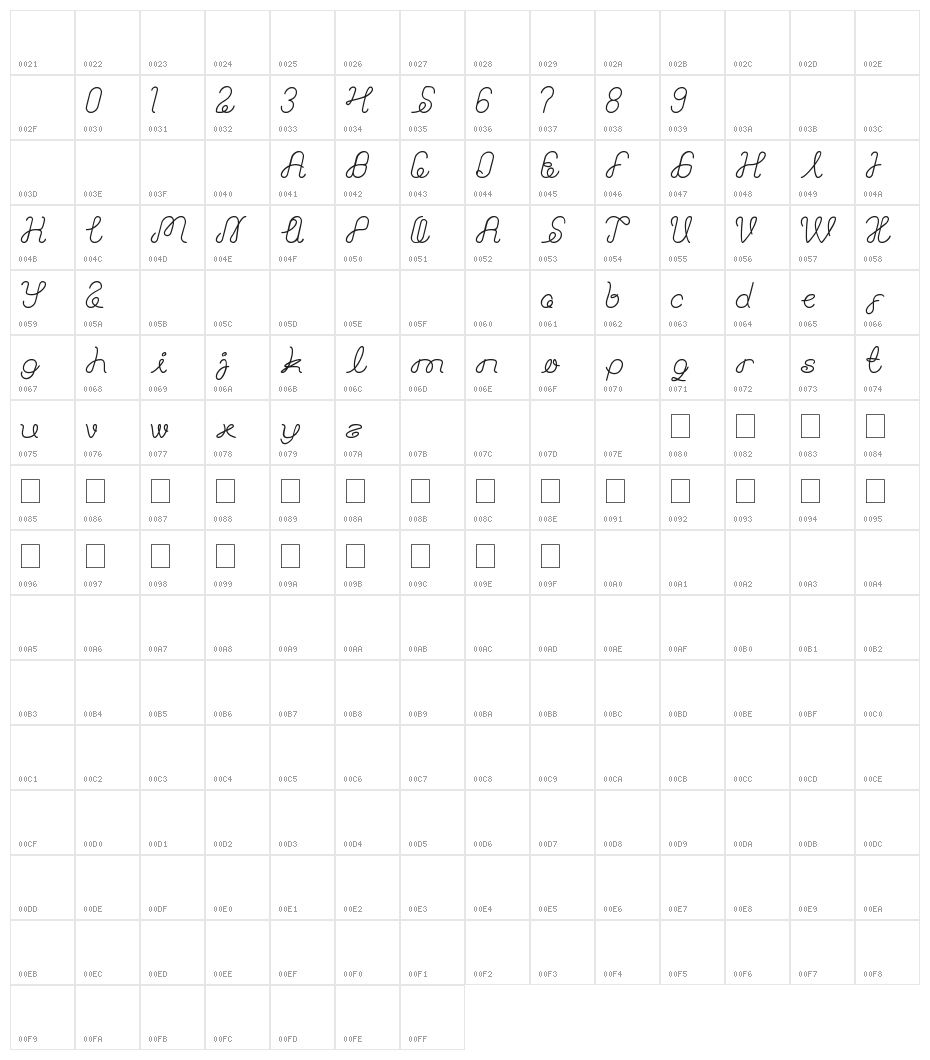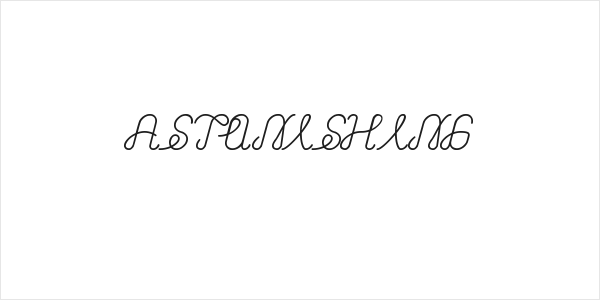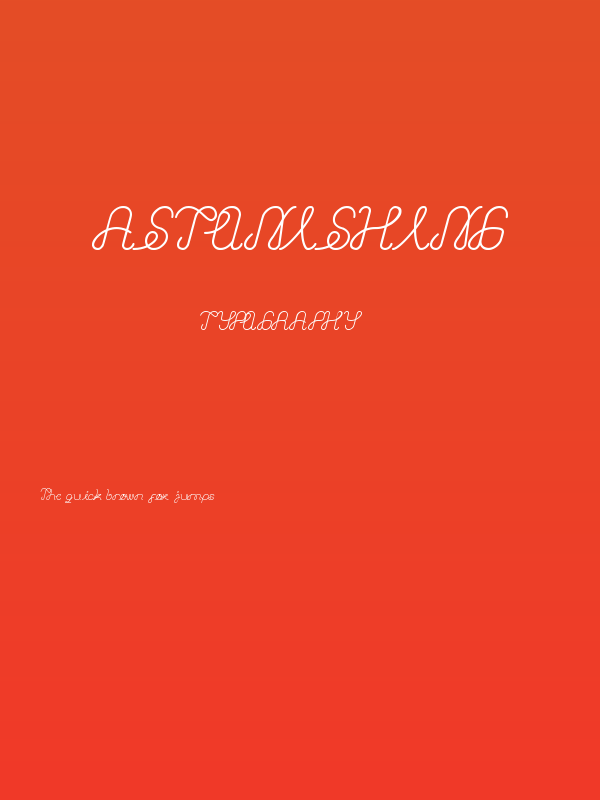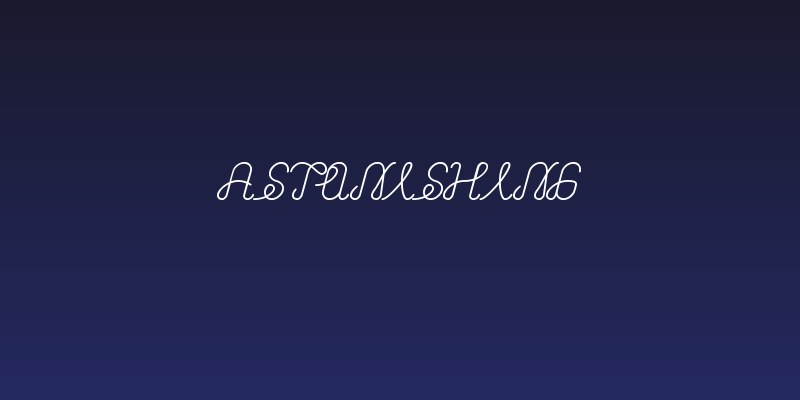
ASTONISHING Font
ASTONISHING Description
This font features a flowing, cursive style with elegant loops and swirls that give it a sophisticated and artistic appearance. The uppercase letters are characterized by their intricate, interconnected lines, creating a sense of continuity and fluidity. The lowercase letters maintain this fluidity with a slightly more compact design, ensuring readability while preserving the artistic flair. Numbers and special characters are designed with the same attention to detail, featuring smooth curves and consistent line thickness. This font's unique style makes it suitable for creative and decorative purposes, adding a touch of elegance and personality to any project.
| Proposed Projects | Ideal for wedding invitations, greeting cards, branding, and artistic projects. |